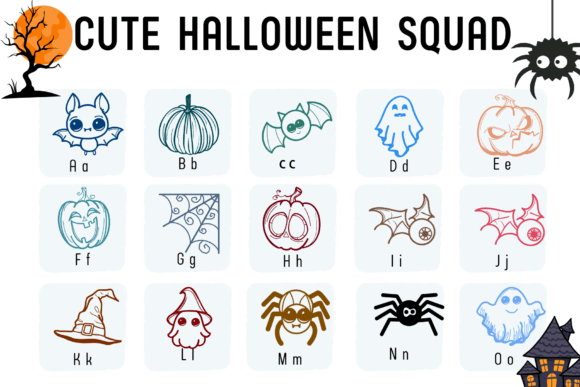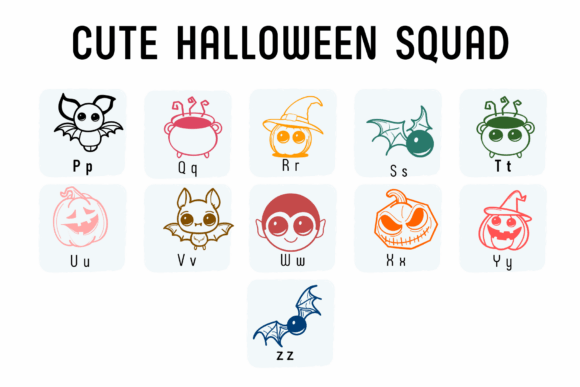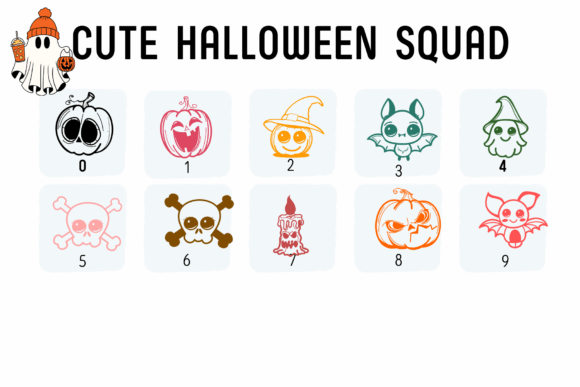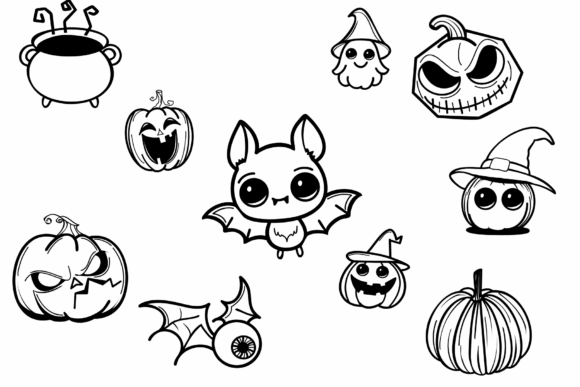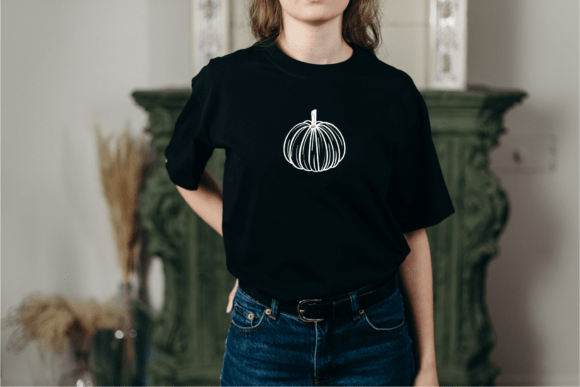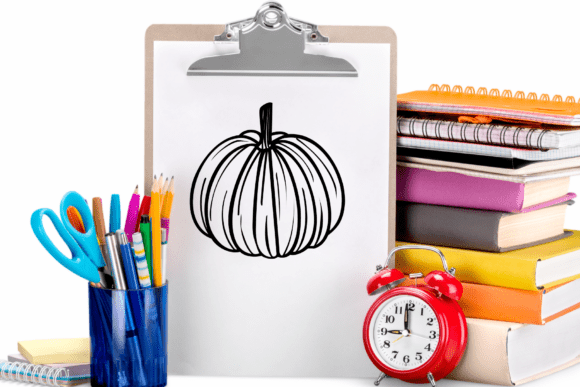
Celebrating the Spooky Season with the Cute Halloween Squad Font
As the sun sets on a crisp autumn evening, the excitement of Halloween begins to build. I find myself browsing through design resources, searching for the perfect fonts to capture the whimsy and magic of this spooky season. That’s when I stumbled upon the Cute Halloween Squad Font – a delightful dingbats font that instantly won my heart. This charming font is filled with whimsical Halloween-themed illustrations, each crafted in a cartoonish style that’s more cute than creepy.
Designed to bring a smile to your face, the Cute Halloween Squad Font is perfect for family-friendly Halloween designs, children’s products, and lighthearted seasonal projects. With its clean black line-art style and playful expressions, this font is a valuable addition to any designer’s toolkit. Whether you’re creating spooky-ooky graphics or simply want to add some festive flair to your designs, the Cute Halloween Squad Font is sure to inspire your creativity.
Cute Halloween Squad Font Key Features
- Unique Characteristics: The font features a playful, hand-drawn design with intricate details and ornaments, perfect for adding a touch of whimsy to Halloween-themed projects.
- Characters and Glyphs: The font includes a wide range of characters, including uppercase and lowercase letters, numbers, punctuation marks, and special characters, as well as Halloween-themed icons and symbols.
Cute Halloween Squad Font Review
The Cute Halloween Squad Font is a fun and playful addition to any design project. ✨ The font’s whimsical design and varied character set make it perfect for creating spooky and festive designs. I particularly enjoyed the way the font’s irregular shapes and curves add a sense of personality to the overall aesthetic.
One of the standout features of this font is its versatility. ✨ It can be used for a wide range of applications, from party invitations to social media graphics, and even product branding. The font’s bold and eye-catching design is sure to grab attention and leave a lasting impression.
While the Cute Halloween Squad Font is a great addition to any design project, there are a few limitations to consider. ⚠️ The font may not be suitable for more formal or professional designs, as its playful and whimsical design may come across as immature or unprofessional. Additionally, the font’s character set may not be as extensive as some other fonts, which could limit its usability in certain situations.
In conclusion, the Cute Halloween Squad Font is a great choice for designers looking to add a touch of whimsy and fun to their projects. While it may have some limitations, the font’s unique design and versatility make it a valuable addition to any design toolkit.
Design Considerations
- Use the font for more informal or creative projects.
- Avoid using the font for formal or professional designs.
- Be mindful of the font’s character set limitations.
To get the most out of Cute Halloween Squad Font, use it for designs that require a playful, whimsical touch, such as:
- Halloween-themed graphics and cards
- Children’s party invitations and decorations
- Spooky or kawaii-inspired designs